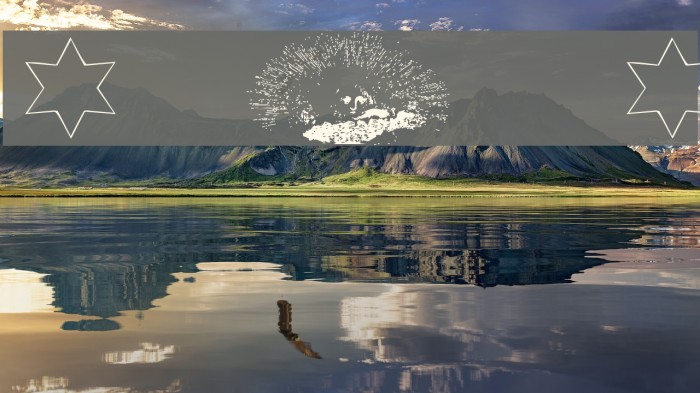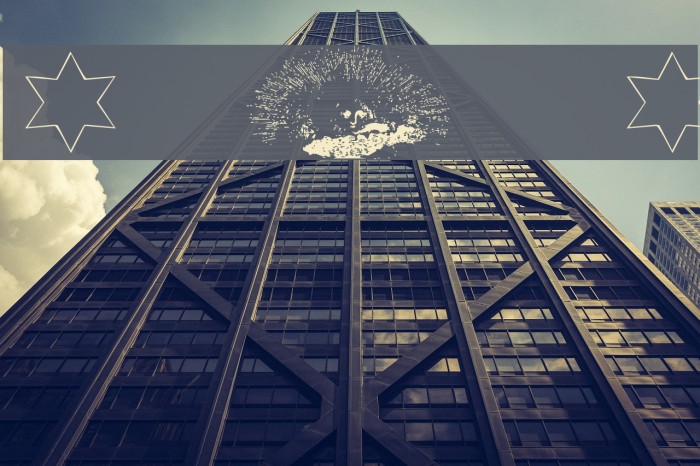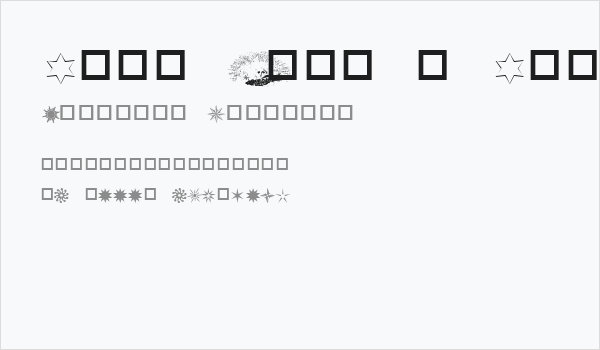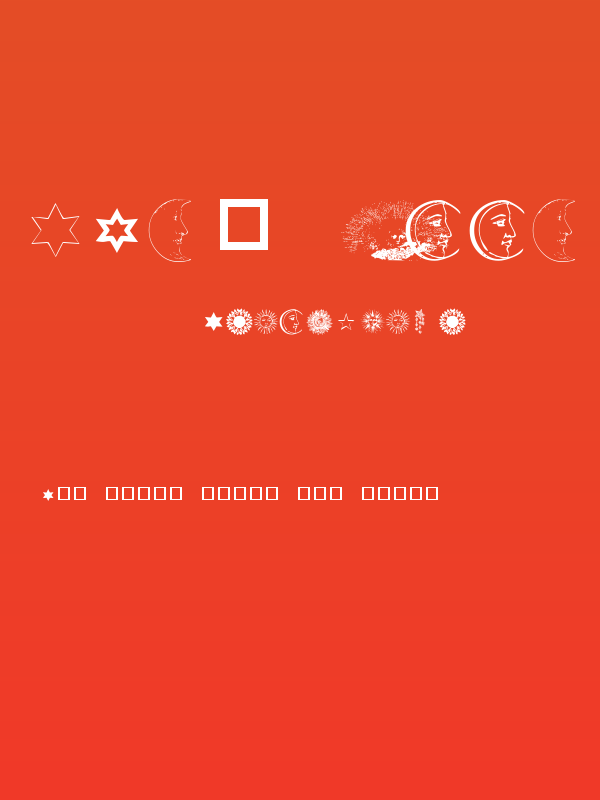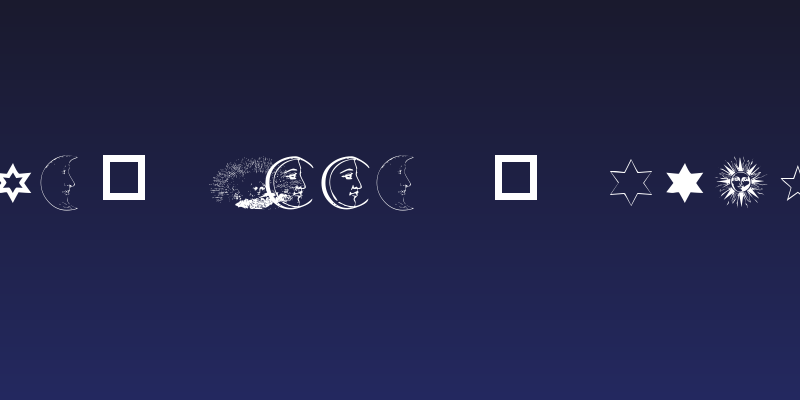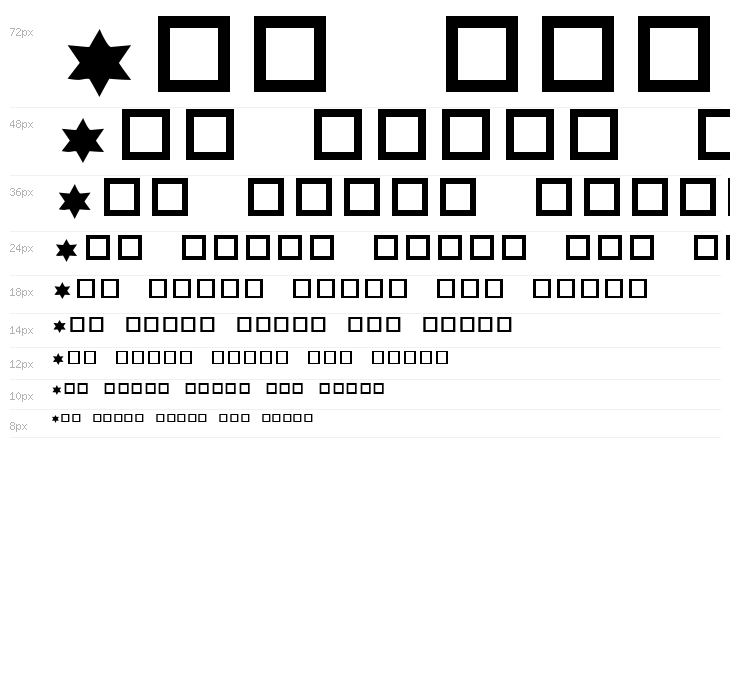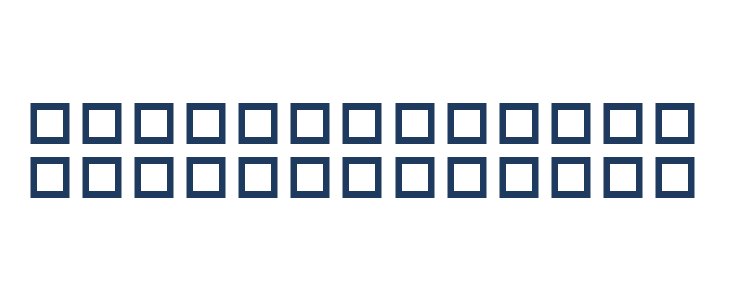
Sun, Moon & Stars Font
Sun, Moon & Stars Description
A decorative dingbat font featuring a variety of sun, moon, and star illustrations in different styles, including both detailed and simplified line art. The glyphs range from whimsical and playful to more classic celestial motifs, suitable for ornamental use.
| Overall Style | Decorative, Whimsical, Celestial |
| Use Case | Icons, Decorative elements, Themed graphics |
| Proposed Projects | Astrology posters, children's book illustrations, greeting cards, scrapbooking, decorative borders, event invitations. |